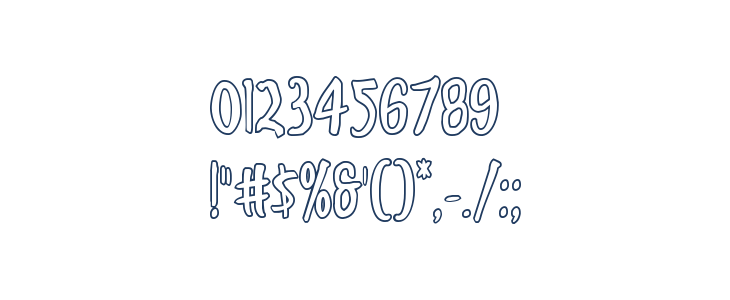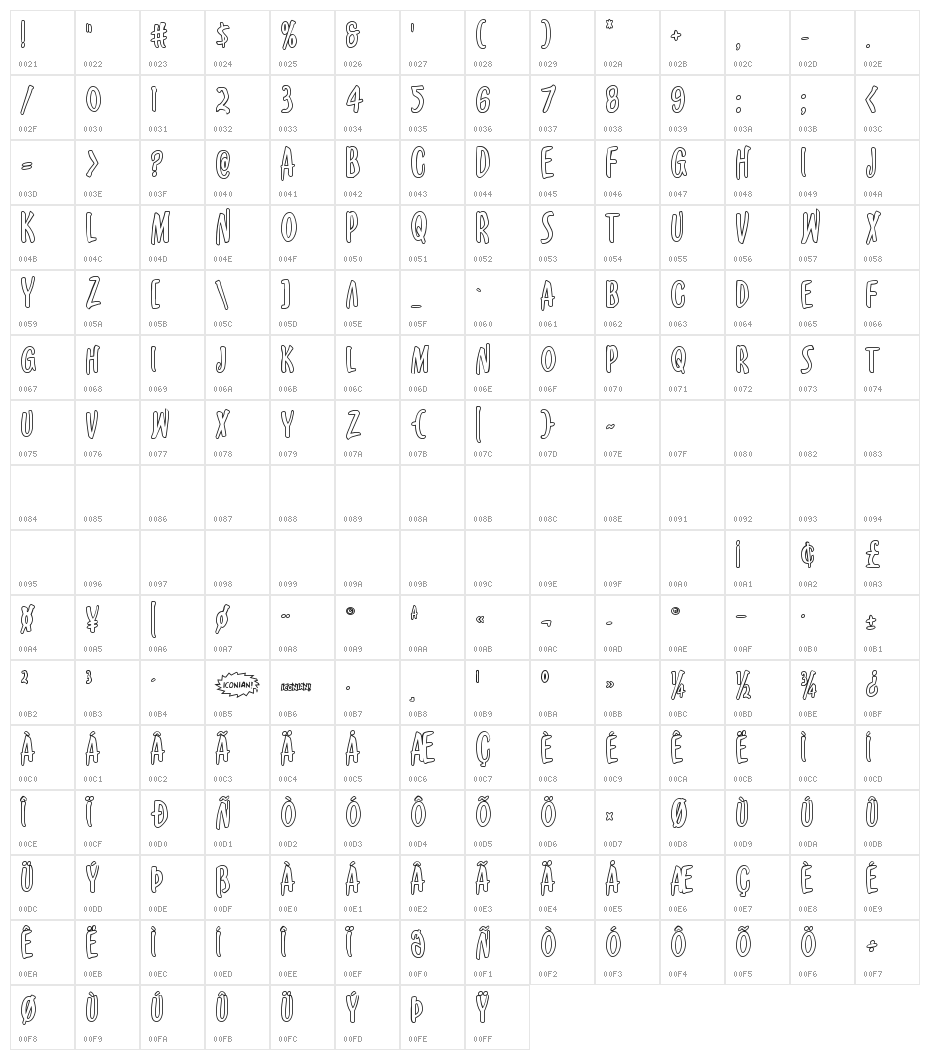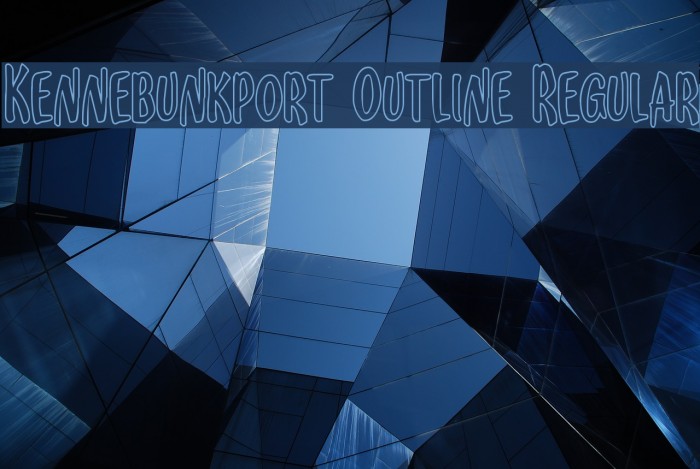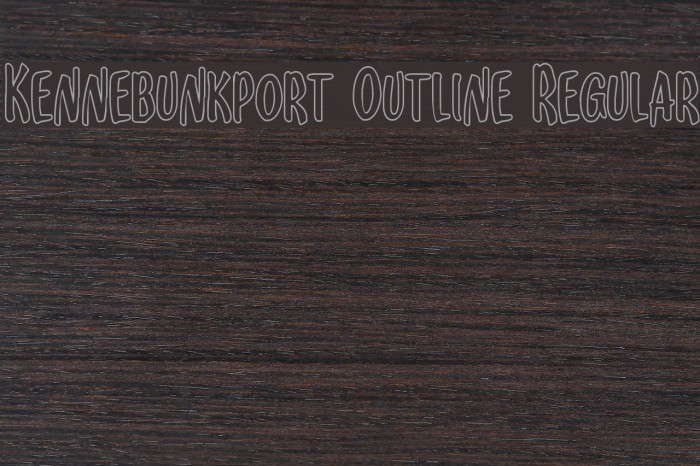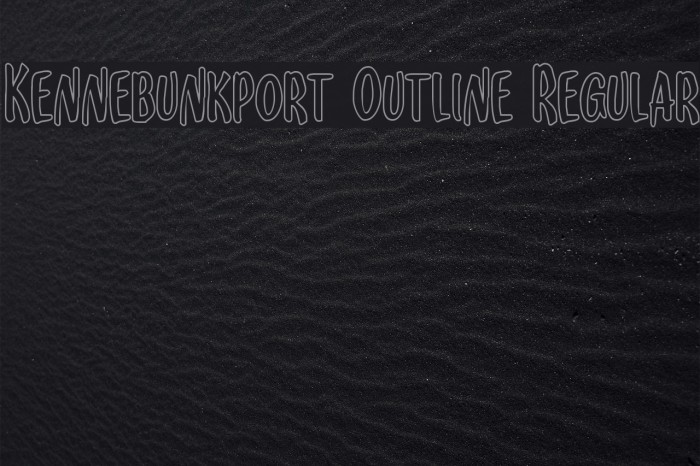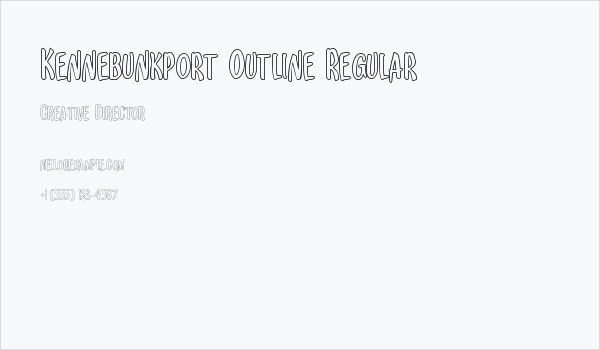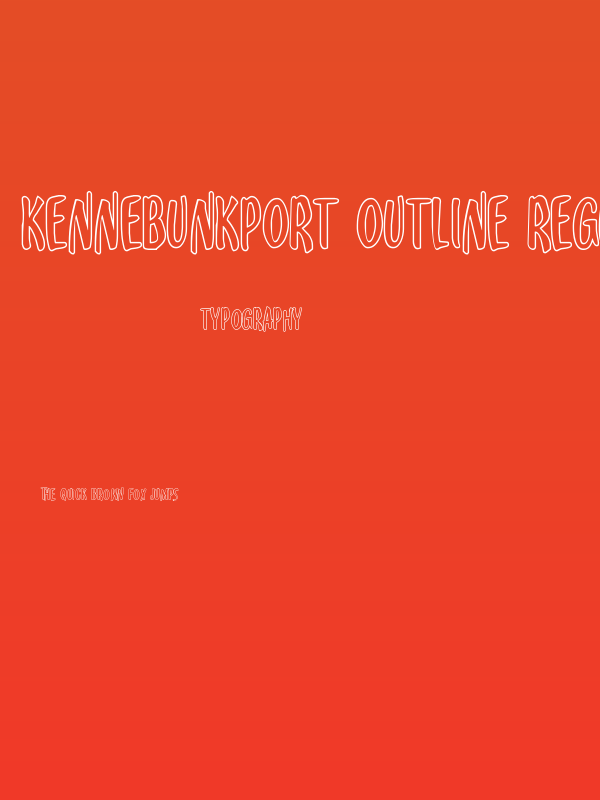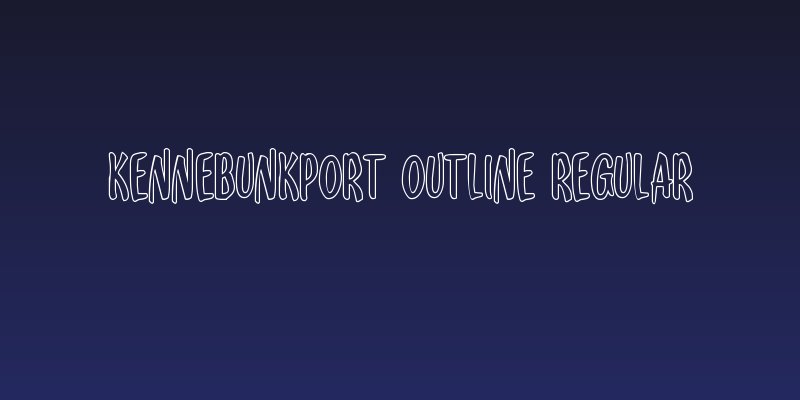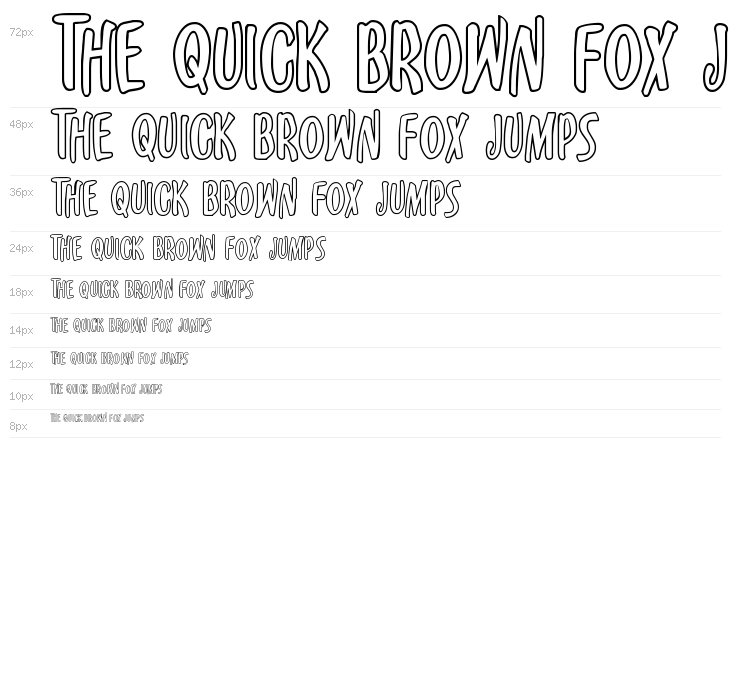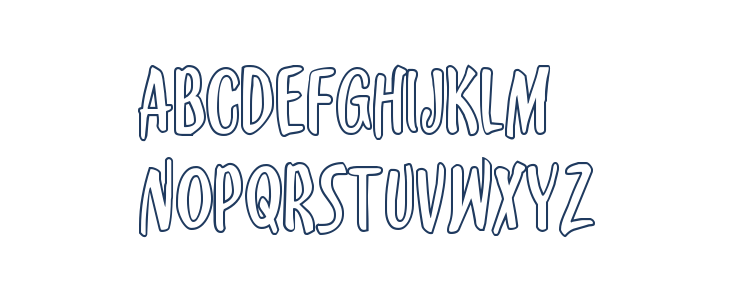
Kennebunkport Outline Regular Font
Kennebunkport Outline Regular Description
This font features a playful and bold outline style, characterized by its hand-drawn appearance. The letters are uppercase and lowercase, with a consistent, rounded outline that gives them a casual and friendly look. The numbers and special characters follow the same style, ensuring a cohesive appearance across all glyphs. The font's design is both eye-catching and approachable, making it suitable for a variety of creative projects. Its unique outline style adds a layer of depth and interest, making it stand out in any design context.
| Overall Style | Playful, Casual |
| Proposed Projects | Ideal for children's books, playful branding, posters, and creative invitations. |